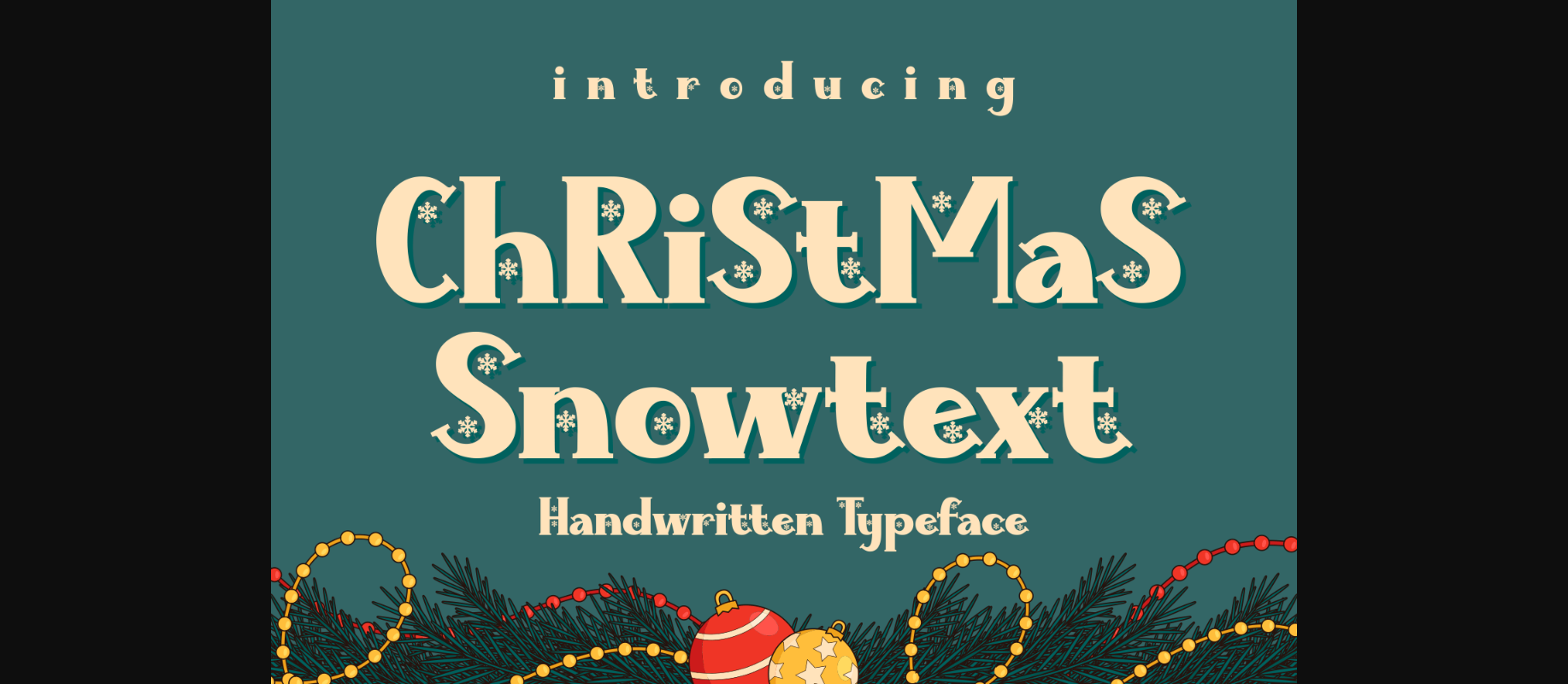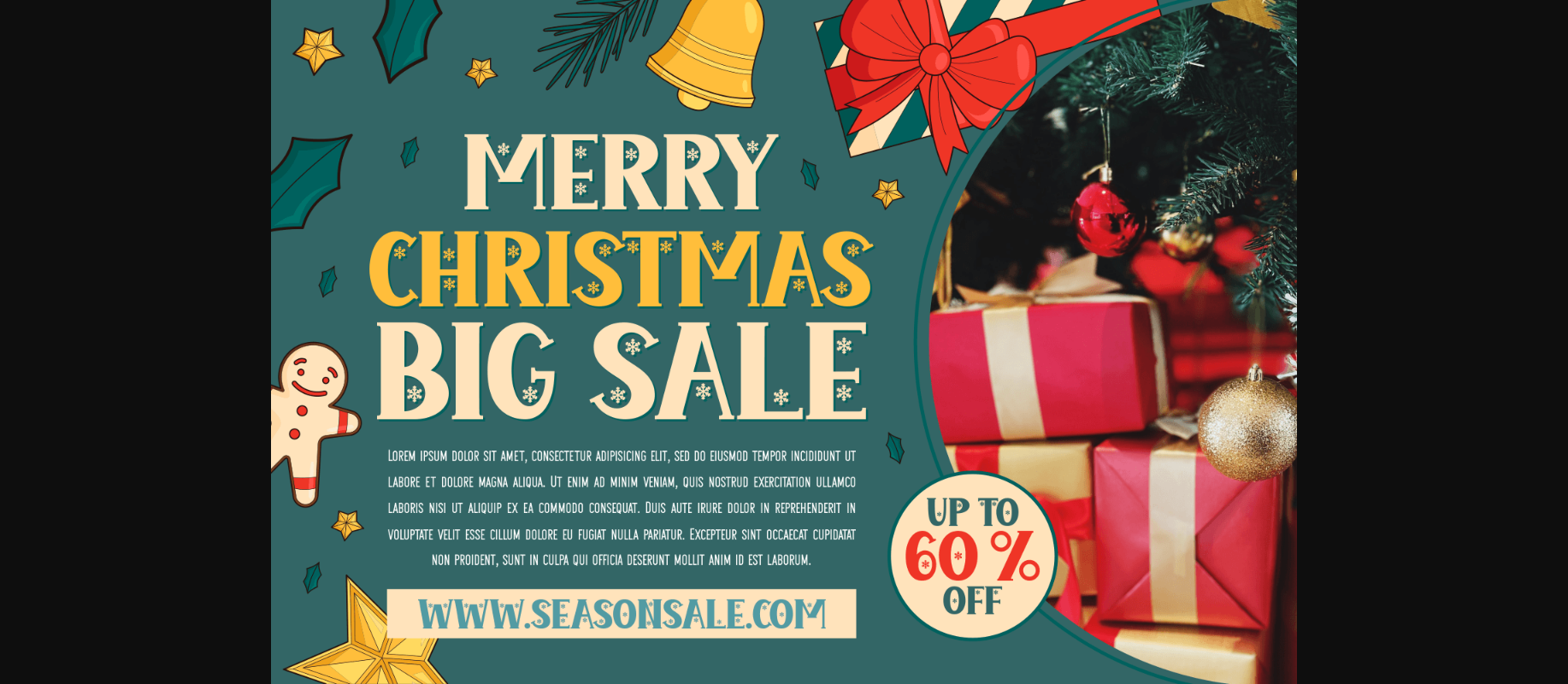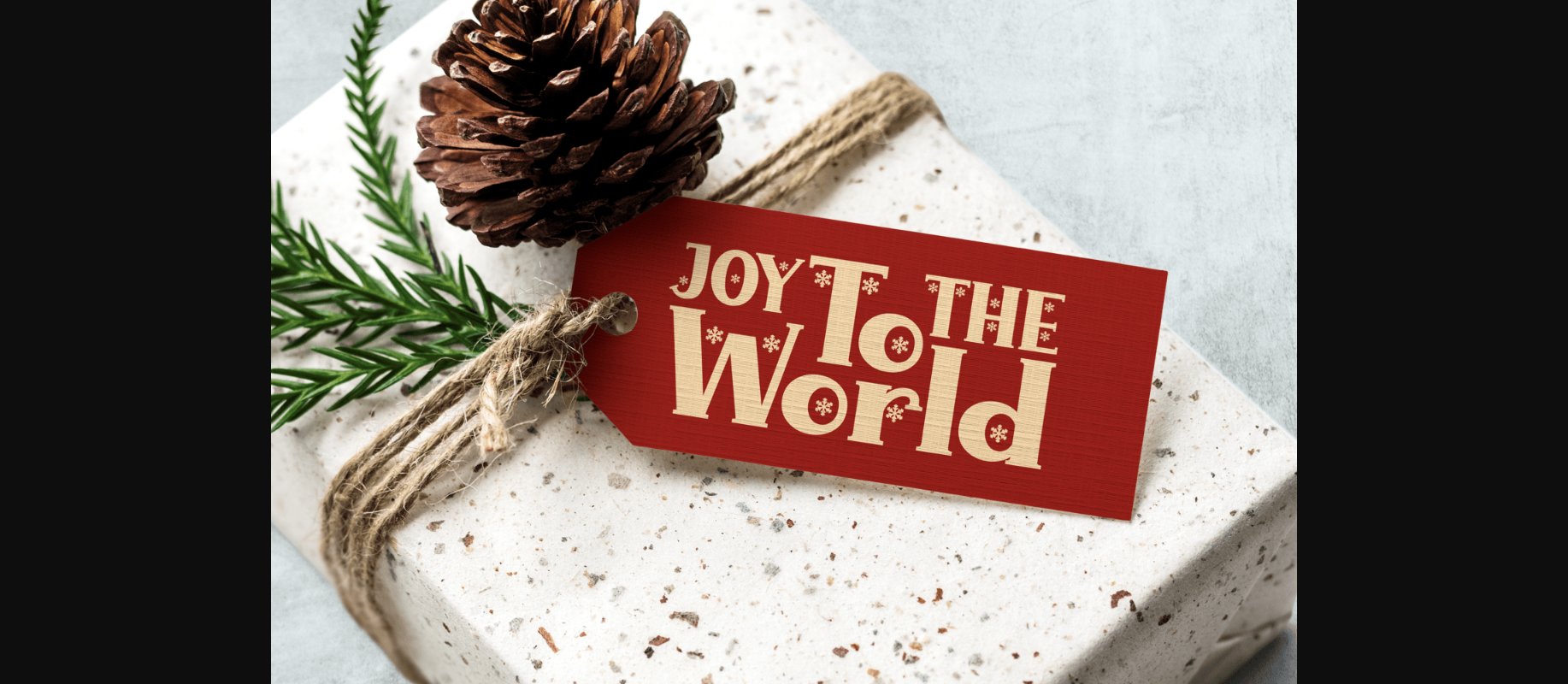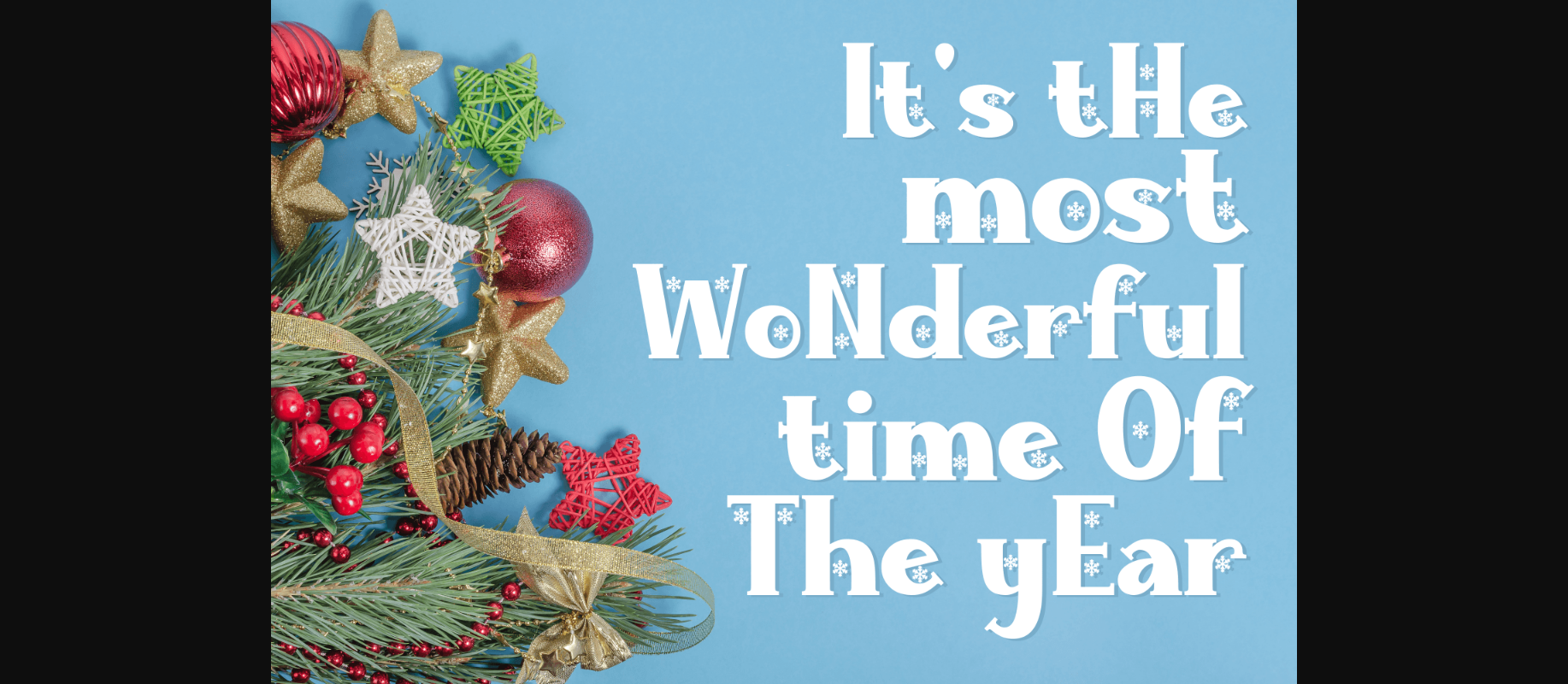
About Christmas Snowtext Font
Christmas Snowtext is a joyful and festive decorative font that fits incredibly well to this time of the year. No matter the topic, this font will be an incredible asset to your fonts’ library, as it has the potential to elevate any creation.